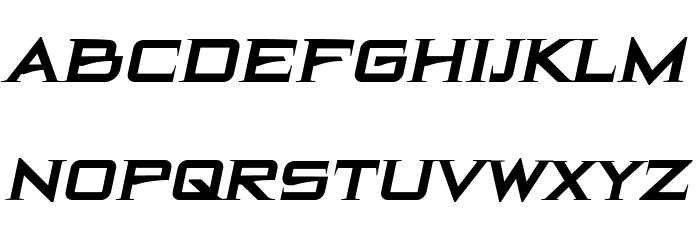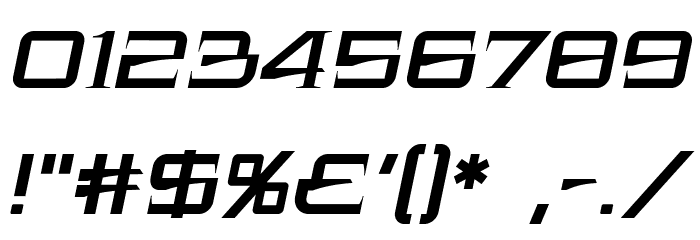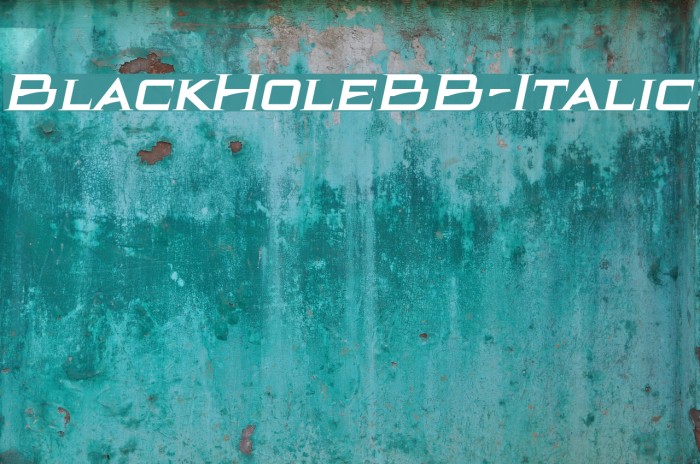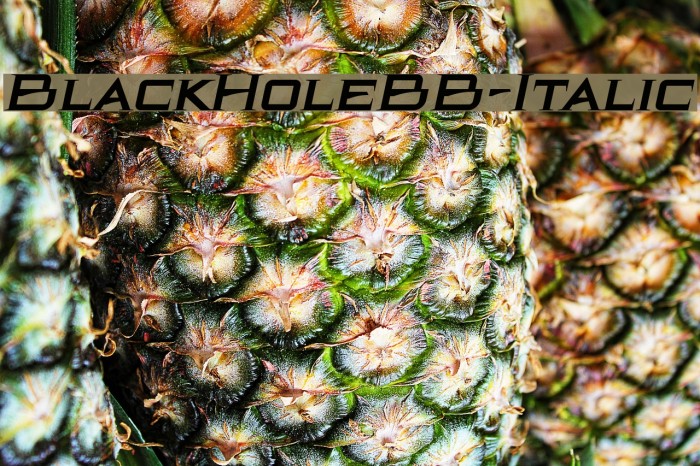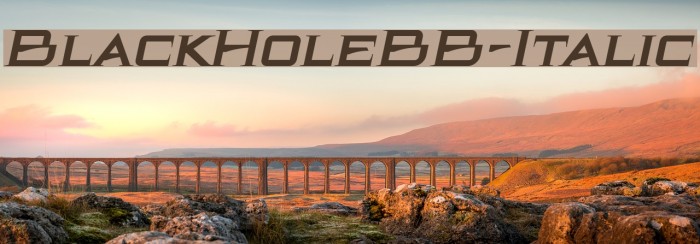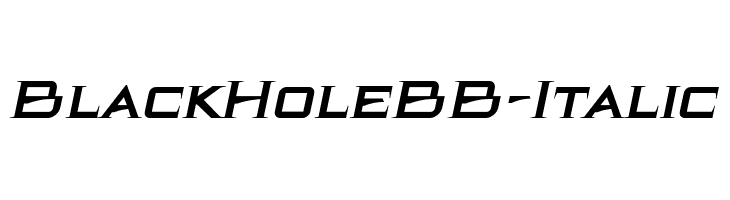
BlackHoleBB-Italic Font
This font features a dynamic and futuristic design with a strong italic slant, giving it a sense of motion and speed. The characters are bold and angular, with sharp edges and a geometric structure that conveys a modern and technological feel. The uppercase and lowercase letters maintain a consistent style, while the numerals and special characters complement the overall aesthetic. The font's unique style makes it stand out, suitable for projects that require a bold and innovative look.
A bold, italic, futuristic font with sharp, angular lines.
- Proposed Projects: Ideal for technology branding, sci-fi posters, video game titles, and dynamic logos.
- Overall Style: Futuristic, Dynamic